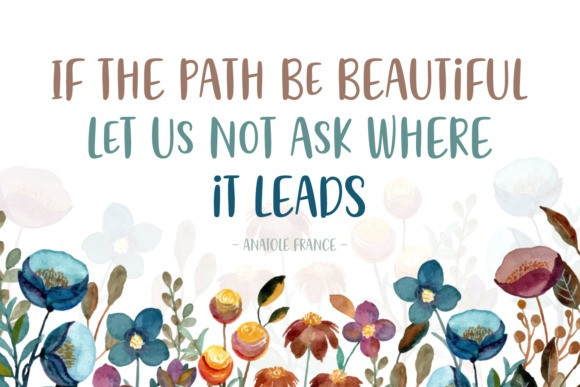
Elila Font
Elila is a fun and playful handwritten font. The additional ligatures and accents available will provide you with even more creative possibilities in your next project!